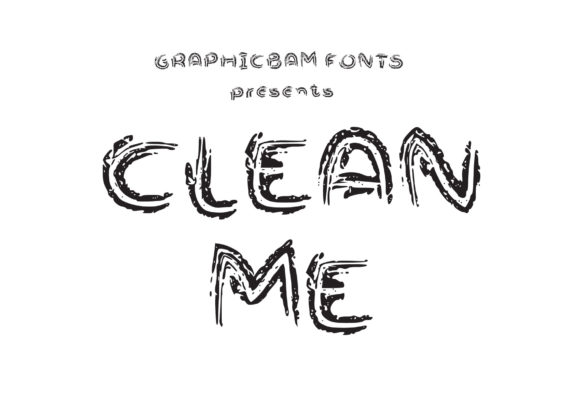
Prepare to be mesmerized by Clean Me Font, a captivating display font that exudes charm and uniqueness. Its meticulously crafted brushed strokes evoke a sense of artistry and creativity, making it the perfect choice for those seeking an extraordinary font that stands out from the crowd.
With Clean Me Font, you can effortlessly transform your designs into eye-catching masterpieces. Its distinct style adds a touch of elegance and playfulness, whether you're creating a captivating logo, a stylish business card, or an unforgettable poster. Let Clean Me Font ignite your imagination and inspire your designs to soar to new heights.
Picture this: a business card that leaves a lasting impression, featuring your name boldly proclaimed in Clean Me Font. The captivating strokes and charming details will make your card a conversation starter, ensuring that potential clients remember you long after the meeting.
Or envision a wedding invitation adorned with Clean Me Font, gracefully guiding your guests to the special occasion. The font's delicate yet playful nature captures the essence of love and joy, setting the perfect tone for your celebration.
Clean Me Font isn't just a font; it's an experience that transforms the ordinary into the extraordinary. Embrace its whimsical charm and watch as your designs blossom into works of art. Dive into a world of creativity and let Clean Me Font elevate your projects to new levels of brilliance.